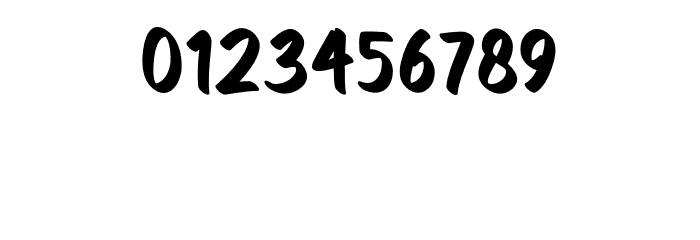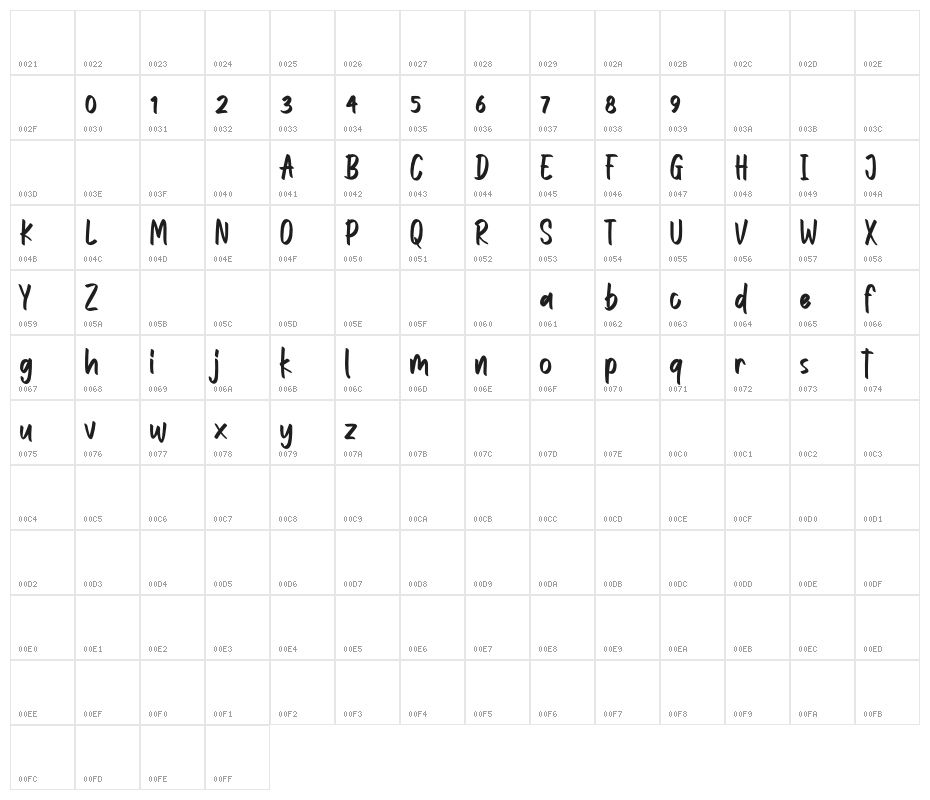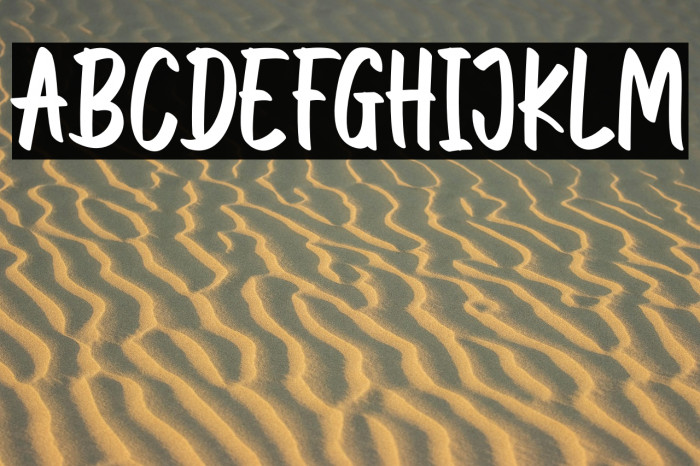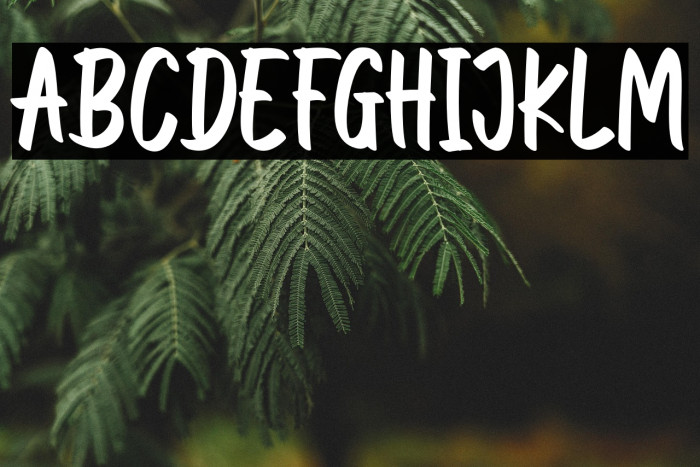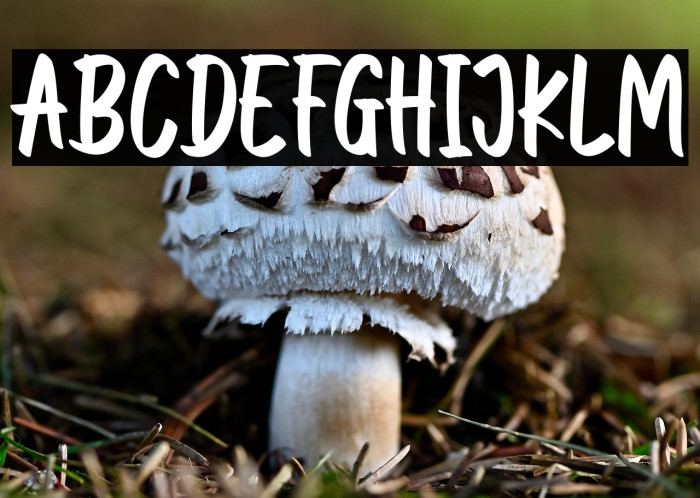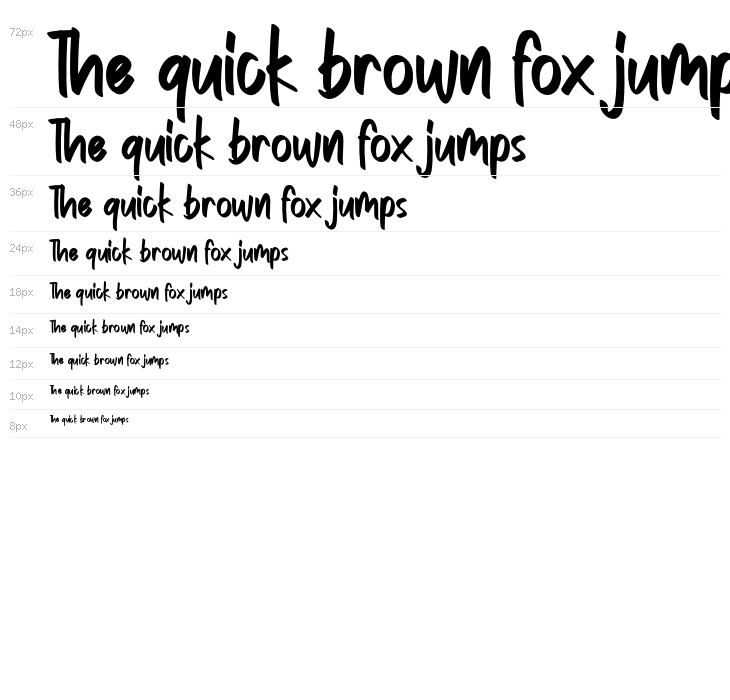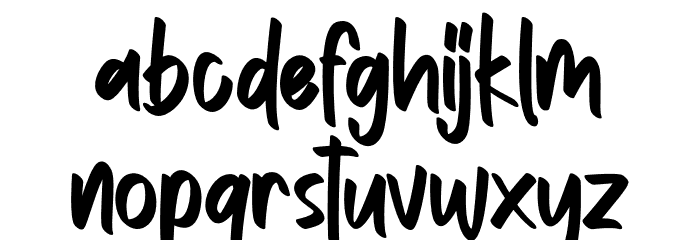
darkglitterFREE Description
This font features a playful and casual handwritten style, characterized by its bold and slightly irregular strokes. The letters have a dynamic flow, with a slight slant that adds to the informal and friendly appearance. The uppercase and lowercase letters are well-balanced, maintaining a consistent height and width throughout. The numbers are clear and legible, matching the overall style of the alphabet. This font exudes a sense of creativity and approachability, making it suitable for projects that require a personal touch.